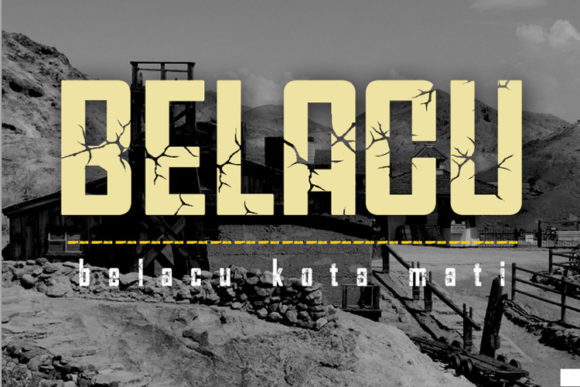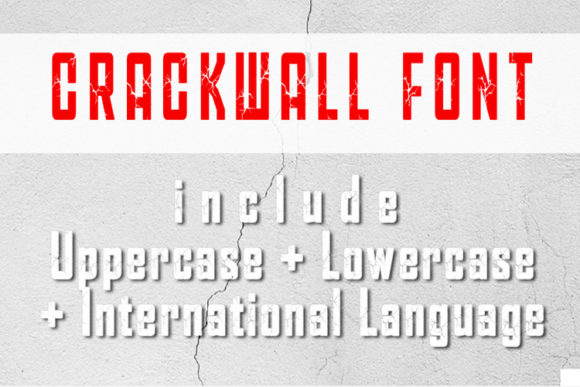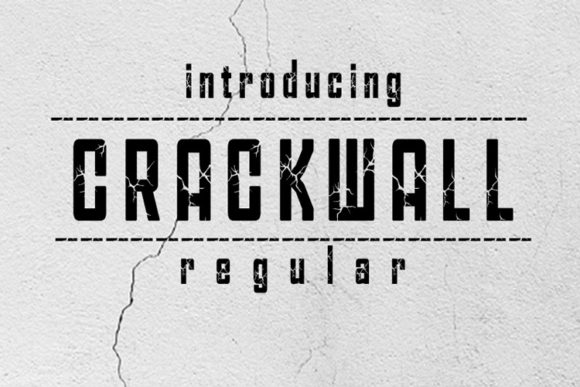
Crackwall Font: A Striking Display Font for Your Designs
Are you looking for a font that can add a unique touch to your designs? Look no further than the Crackwall Font. This handmade display font features a striking crack effect that is sure to make your designs stand out. In this article, we’ll take a closer look at the Crackwall Font and explore its features, uses, and benefits for designers and crafters.
What is Crackwall Font?
The Crackwall Font is a display font that has been carefully crafted to give your designs a bold and eye-catching look. Its unique crack effect gives it a distinctive appearance that is sure to grab attention. The font is perfect for use in a variety of design projects, including branding, logos, posters, t-shirts, book covers, and more.
Features of Crackwall Font
The Crackwall Font has several features that make it a great choice for designers and crafters. Some of its key features include:
- Handmade with love: The Crackwall Font is a handmade font, which gives it a unique and personal touch.
- Unique crack effect: The font features a striking crack effect that adds a bold and eye-catching touch to your designs.
- High-quality design: The font is designed with high-quality and precision, ensuring that it looks great in any design project.
- Versatile: The Crackwall Font is versatile and can be used in a variety of design projects, from branding and logos to posters and book covers.
Uses of Crackwall Font
The Crackwall Font is a versatile font that can be used in a variety of design projects. Some of the most popular uses for the font include:
- Branding and logos: The Crackwall Font is perfect for creating bold and eye-catching logos and branding materials.
- Posters and flyers: The font is great for use in posters and flyers, where its bold and striking appearance can help grab attention.
- T-shirts and apparel: The Crackwall Font is a great choice for designing t-shirts and other apparel, where its bold and eye-catching appearance can help your designs stand out.
- Book covers and magazines: The font is also perfect for use in book covers and magazines, where its bold and striking appearance can help grab attention.
Benefits of Using Crackwall Font
The Crackwall Font offers several benefits for designers and crafters. Some of the most significant benefits include:
- Unique and eye-catching designs: The Crackwall Font allows you to create unique and eye-catching designs that are sure to grab attention.
- Versatility: The font is versatile and can be used in a variety of design projects, making it a great addition to any design library.
- High-quality design: The font is designed with high-quality and precision, ensuring that it looks great in any design project.
Tips for Using Crackwall Font
Here are some tips for using the Crackwall Font in your designs:
- Use it bold and big: The Crackwall Font is designed to be bold and eye-catching, so don’t be afraid to use it in large sizes.
- Experiment with colors: The font looks great in a variety of colors, so experiment with different colors to find the one that works best for your design.
- Pair it with other fonts: The Crackwall Font can be paired with other fonts to create a unique and interesting design.
The Crackwall Font is a striking display font that is perfect for designers and crafters looking to add a unique touch to their designs. Its handmade and unique crack effect make it a great choice for a variety of design projects, from branding and logos to posters and book covers. With its high-quality design, versatility, and ease of use, the Crackwall Font is a great addition to any design library.